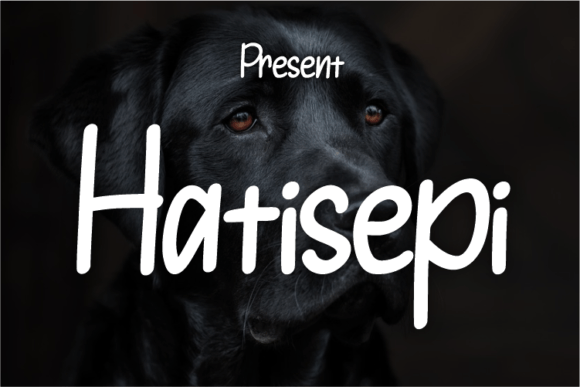
Introducing Hatisepi Font, the epitome of elegance and modernity in the world of script typefaces. Created by the talented Eric Kusuma, this font is a must-have for anyone looking to elevate their design projects to new heights. With its simple yet captivating style, Hatisepi is the perfect choice for those seeking a touch of sophistication and luxury.
Are you in search of the ideal font for your text logo? Look no further! Hatisepi Font is here to fulfill all your branding aspirations. Its exquisite and refined design will effortlessly convey the essence of your business, leaving a lasting impression on your audience. Whether you're a startup, a well-established company, or an individual entrepreneur, Hatisepi Font will help you stand out from the crowd.
But Hatisepi Font doesn't stop at text logos. Its versatility extends to a wide range of design applications. Imagine the impact it can have on book and movie titles, giving them a contemporary and stylish flair. Fashion brands can also benefit from Hatisepi's charm, as it adds a touch of sophistication to clothing labels and magazine covers.
In today's world, where visuals play a crucial role, fonts have become an integral part of design. Hatisepi Font understands this need and caters to it perfectly. It is carefully crafted to ensure legibility and readability, making it an ideal choice for any typography-related project. From social media posts to inspirational quotes, Hatisepi Font will effortlessly enhance your message.
What sets Hatisepi Font apart is its ability to evoke emotions and create a connection with your audience. Its sleek curves and modern look exude confidence, elegance, and creativity. By incorporating Hatisepi Font into your designs, you are not just adding a font; you are adding a piece of art that will captivate and inspire.